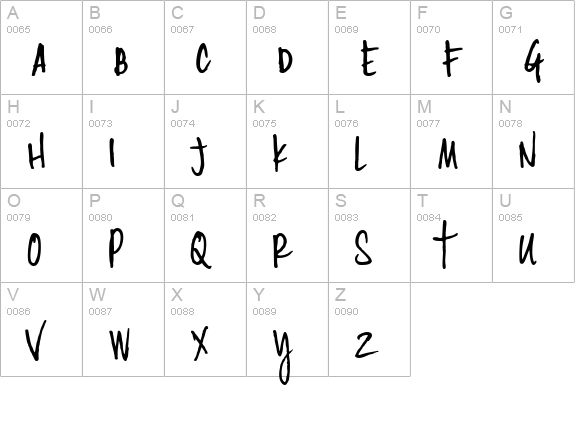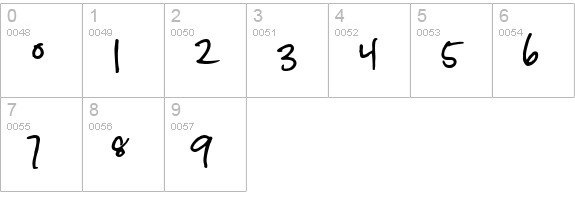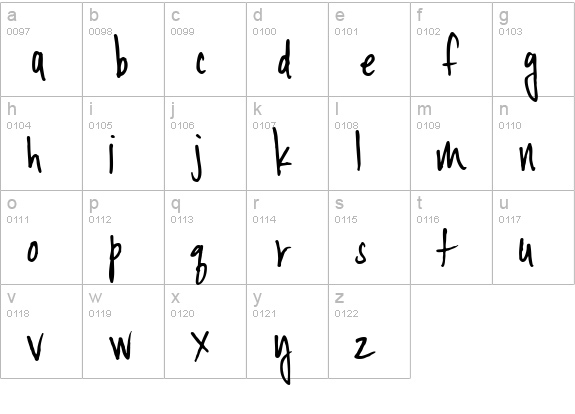
Cinahand Light Font Details
Cinahand Light is a refined, elegant variant in the Cinahand typeface family \xE2\x80\x94 well suited to elegant body text, refined sub-headings, and luxury branding.
Cinahand Light font is a beautifully crafted typeface that exudes elegance and sophistication. Its delicate strokes and flowing lines make it perfect for adding a touch of charm to any design project. Whether you're creating invitations, branding materials, or social media graphics, Cinahand Light font is sure to make a lasting impression. What sets Cinahand Light font apart is that it is not only stunningly beautiful, but also completely free to use. That's right, you can download this exquisite font at no cost from FontsMarket.com. With its versatility and timeless appeal, Cinahand Light font is a must-have addition to any designer's toolkit. Don't miss out on the opportunity to enhance your creations with this stunning typeface today!